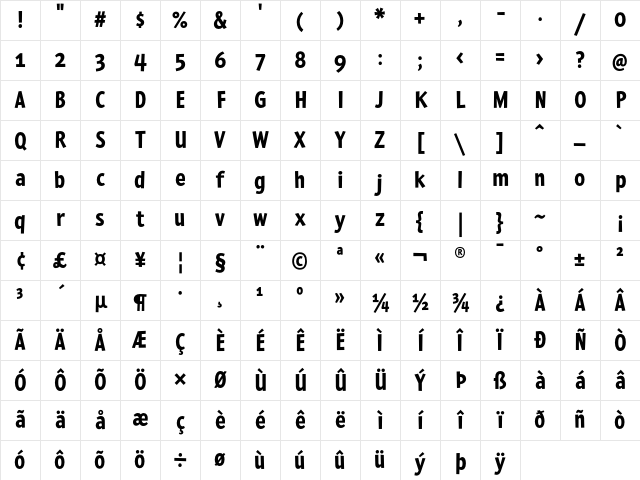
Complete PedestriaMVB Bold glyph index. Displaying only characters natively supported by PedestriaMVB Bold font.
PedestriaMVB is a composed and adaptable typeface that performs quietly and consistently across a wide range of design contexts. Its bold stroke weight gives it real presence on the page.